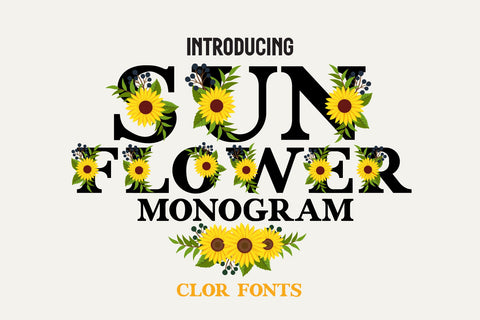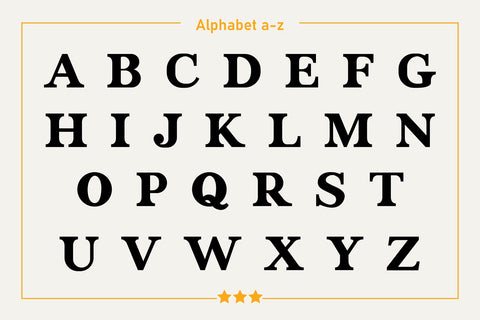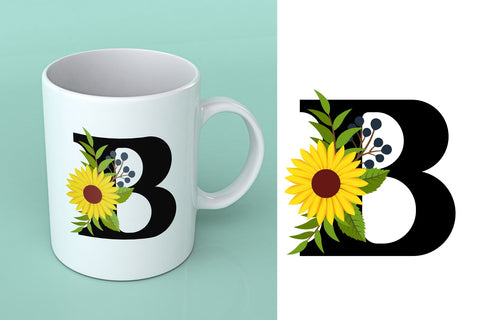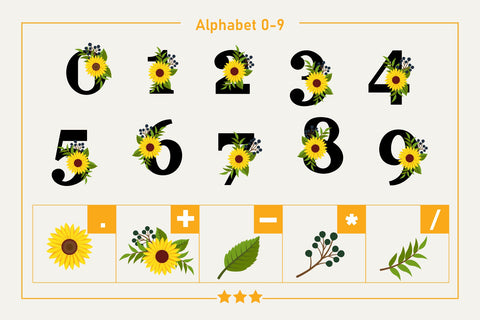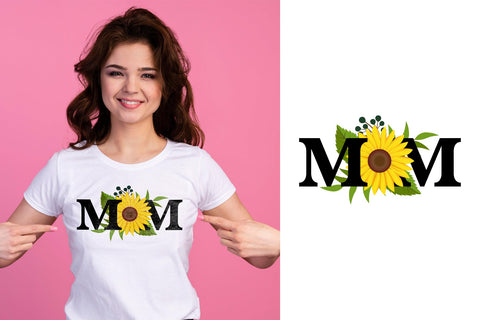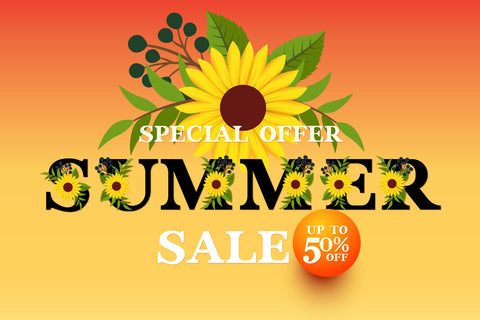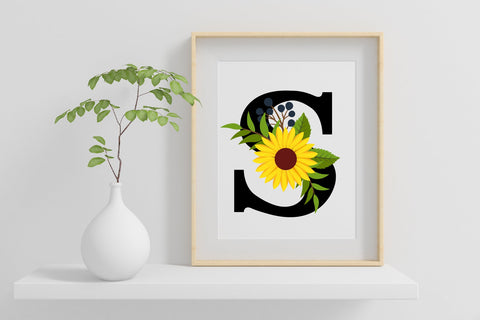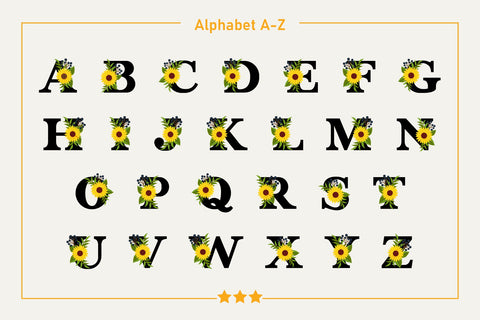
Sunflower Monogram Color Fonts
Sunflower Monogram is a meticulously designed color font. Gives a feeling of freshness and vitality. Fall in love with its authentic feel and use it to create gorgeous invitations, beautiful stationary art, eye-catching social media posts, and cute greeting cards. Use it to make your ideas even more realistic and create spectacular designs!